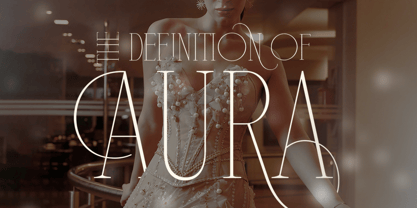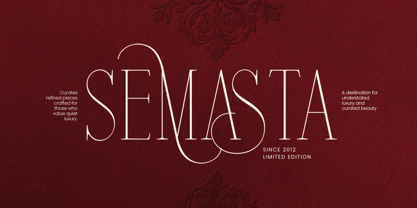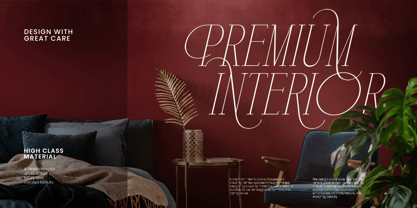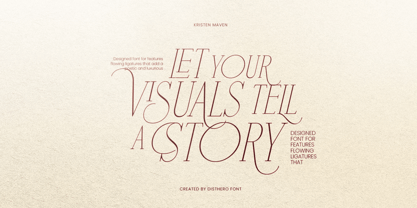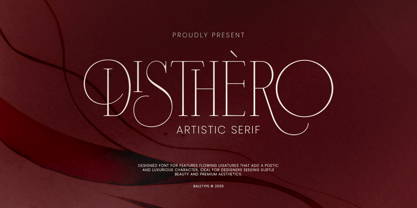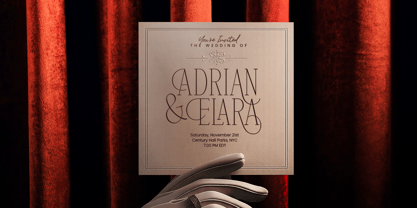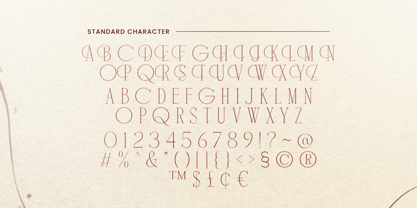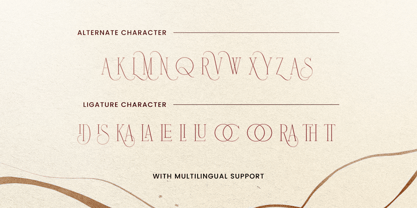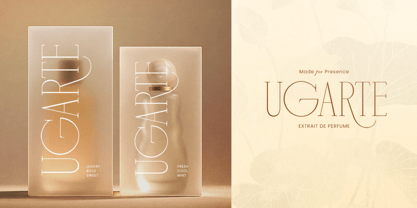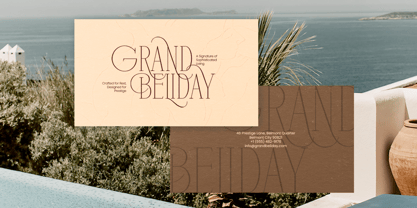
Disthero
von Bale Type
Die Schriftfamilie Disthero wurde von Dzikrul Aulia entworfen und von Bale Type veröffentlicht. Disthero enthält 2 Stile und Familienpaketoptionen. Mehr über diese Familie
Disthero is a light and tall modern serif typeface featuring elegant alternates and beautifully crafted ligatures that add sophistication to any design. With its refined, contemporary style and luxurious character, this font is perfect for a wide range of creative projects, including branding, logos, editorial layouts, quotes, wedding invitations, packaging, social media graphics, and any design that requires a classy and premium appearance. Its clean proportions and stylish details make it both versatile and visually striking, helping your work stand out with a timeless aesthetic. Disthero also includes a matching italic style for added flexibility and expression, along with multilingual support to accommodate a wide variety of languages and international design needs.
Designer: Dzikrul Aulia
Foundry: Bale Type